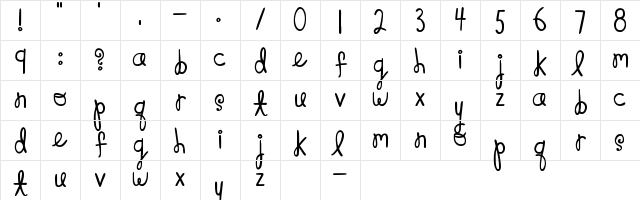
Complete Monster Paparazzi Regular glyph index. Displaying only characters natively supported by Monster Paparazzi Regular font.
Monster Paparazzi is a composed and adaptable typeface that performs quietly and consistently across a wide range of design contexts.